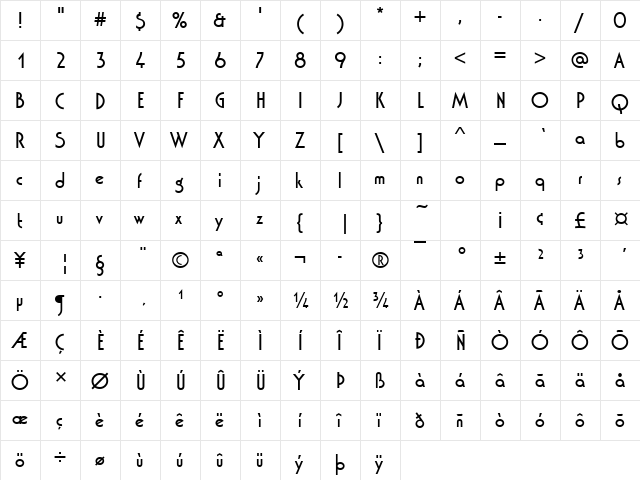
Washington Becker Regular
Design Context for Washington Becker Typeface
Washington Becker takes a measured approach to typography — its balanced proportions and neutral character make it a reliable workhorse for both digital and print work.